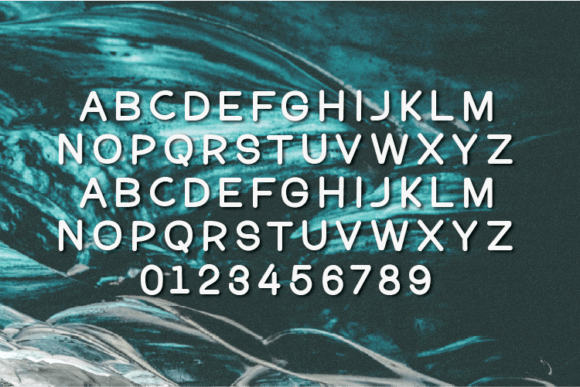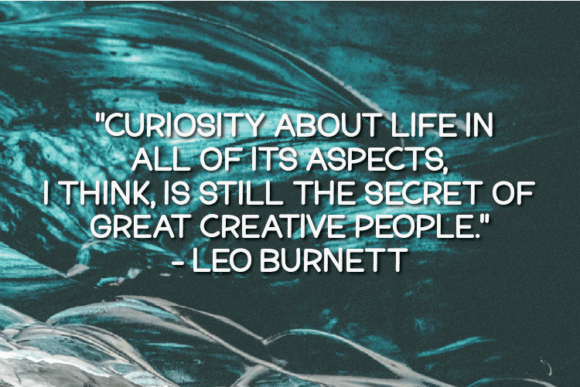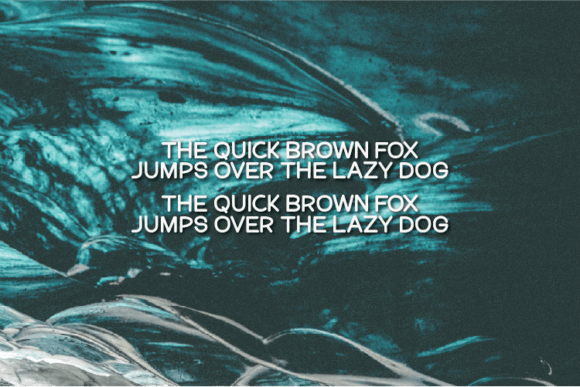
Introduction to Proteus Font
Proteus is a natural sans serif font made without changing a single node in each character’s indentation- this makes this font very interesting and unique.
Perfect for quotes, notes, tees, and any product design .
Key Features of Proteus Font